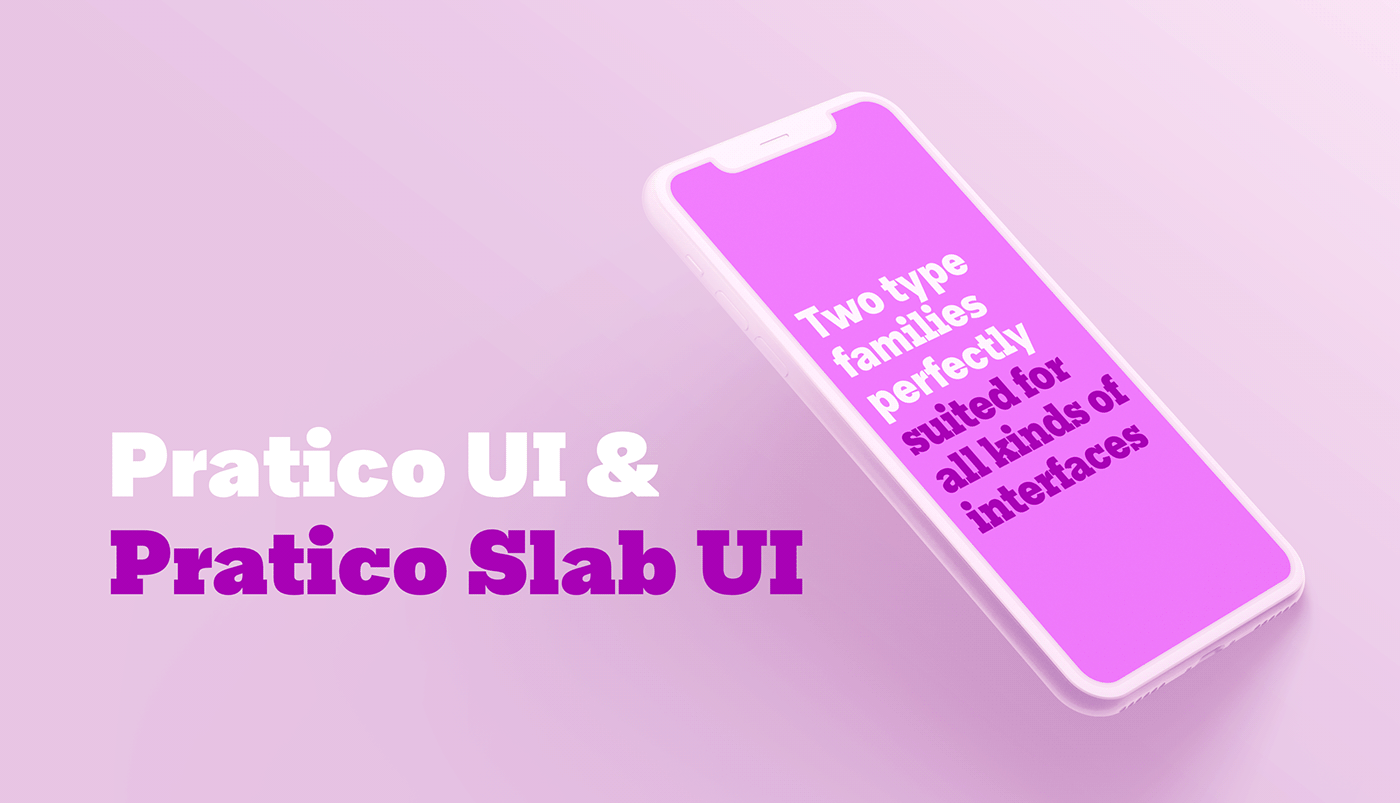
With this type family we tried to unify the clinical flavour of the mid-twentieth century European fonts and the strength and personality of the early twentieth century American fonts into a pair of multiplexed typefaces. Pratico UI and Pratico Slab UI are only available as two separate Variable Fonts, each with Weight and Italic axis, both equipped with eight pre-built instances and matching italics.